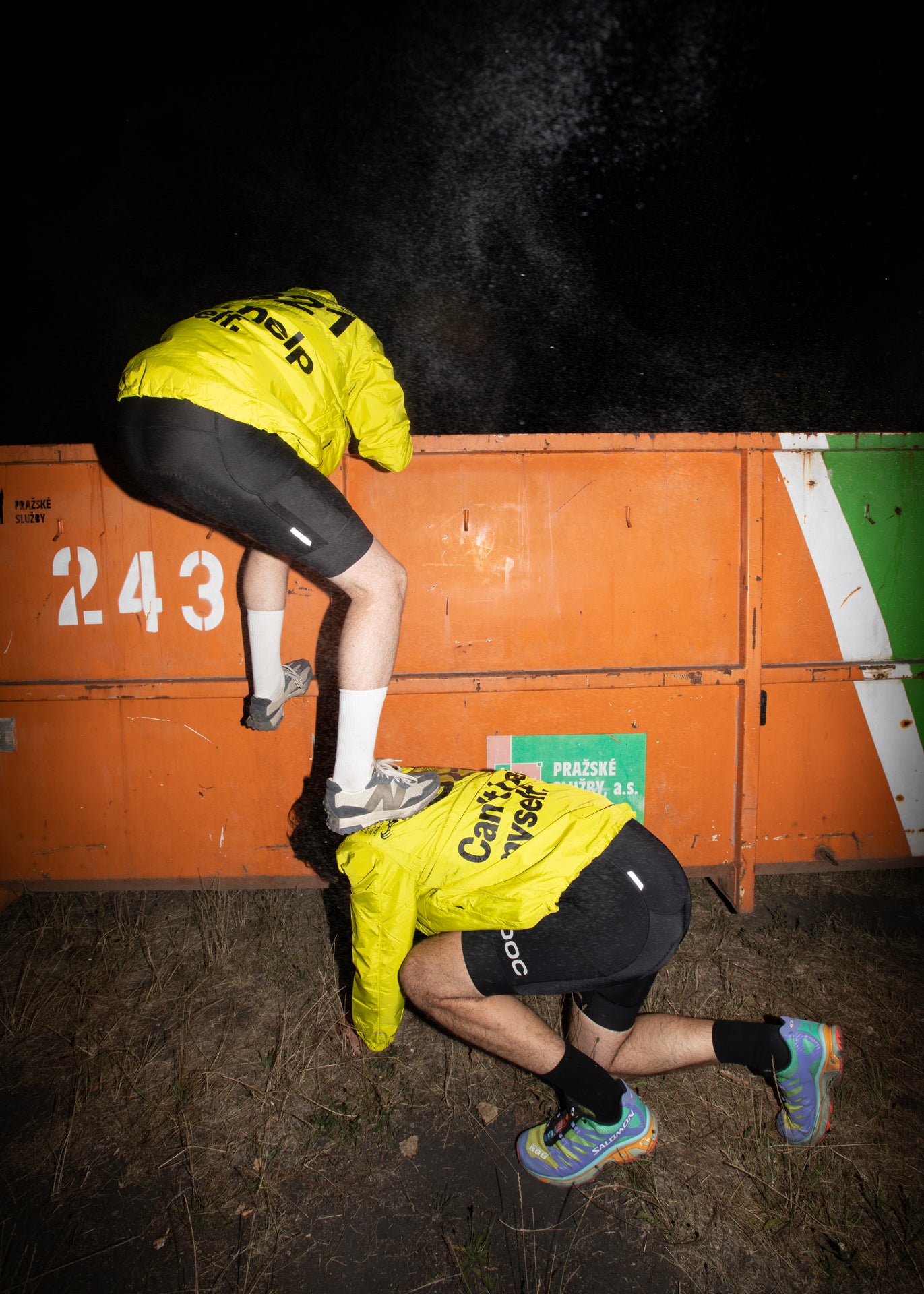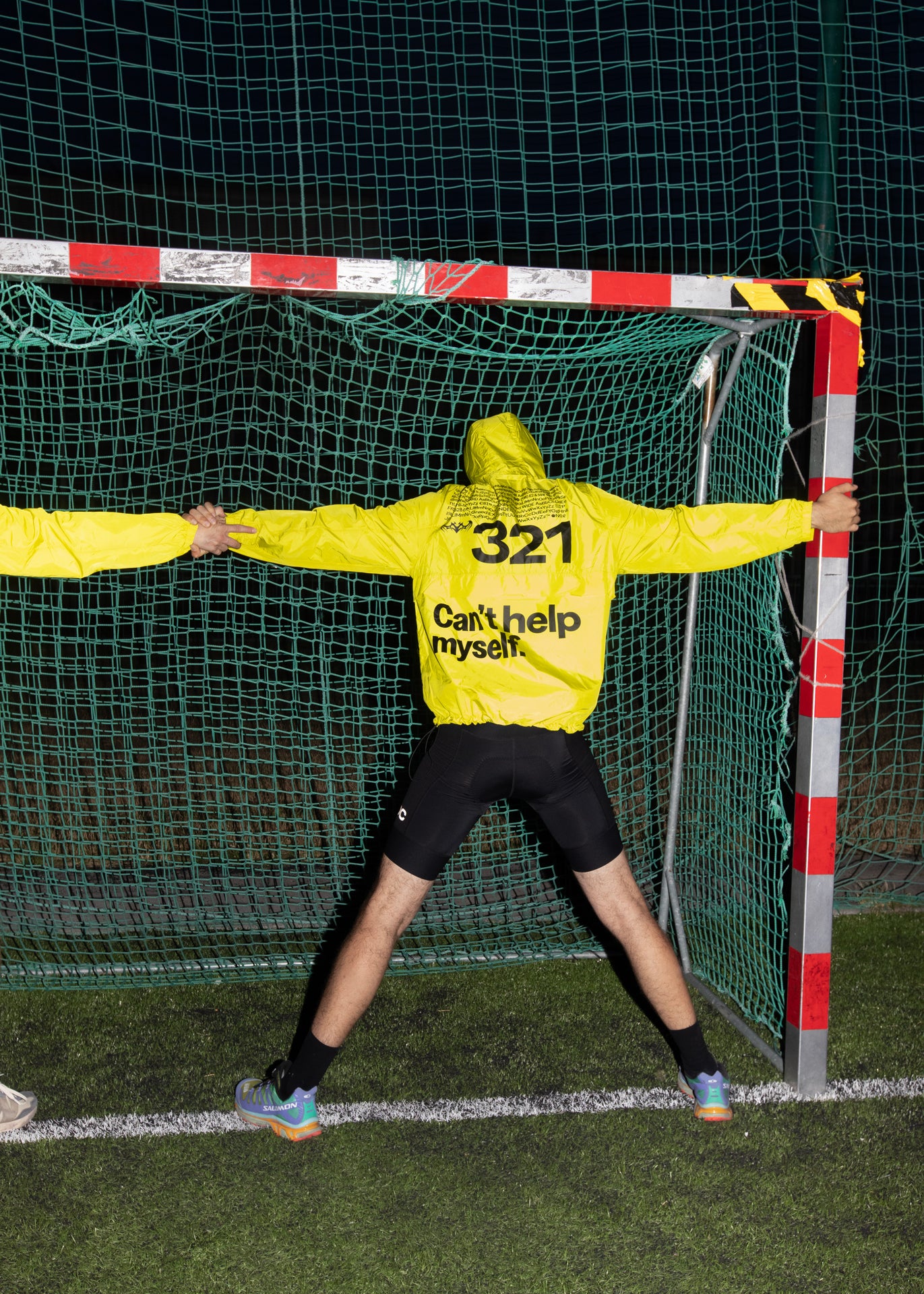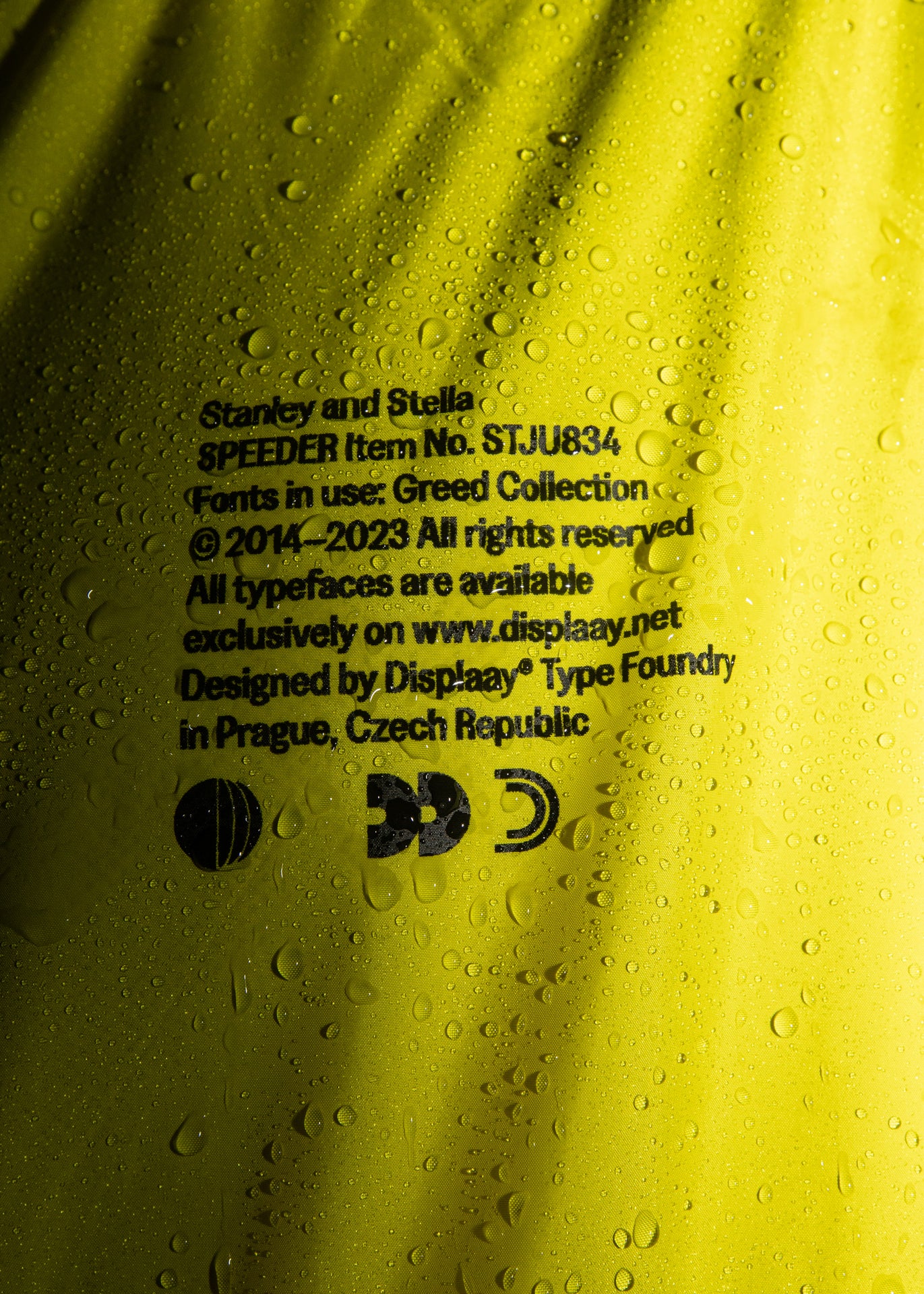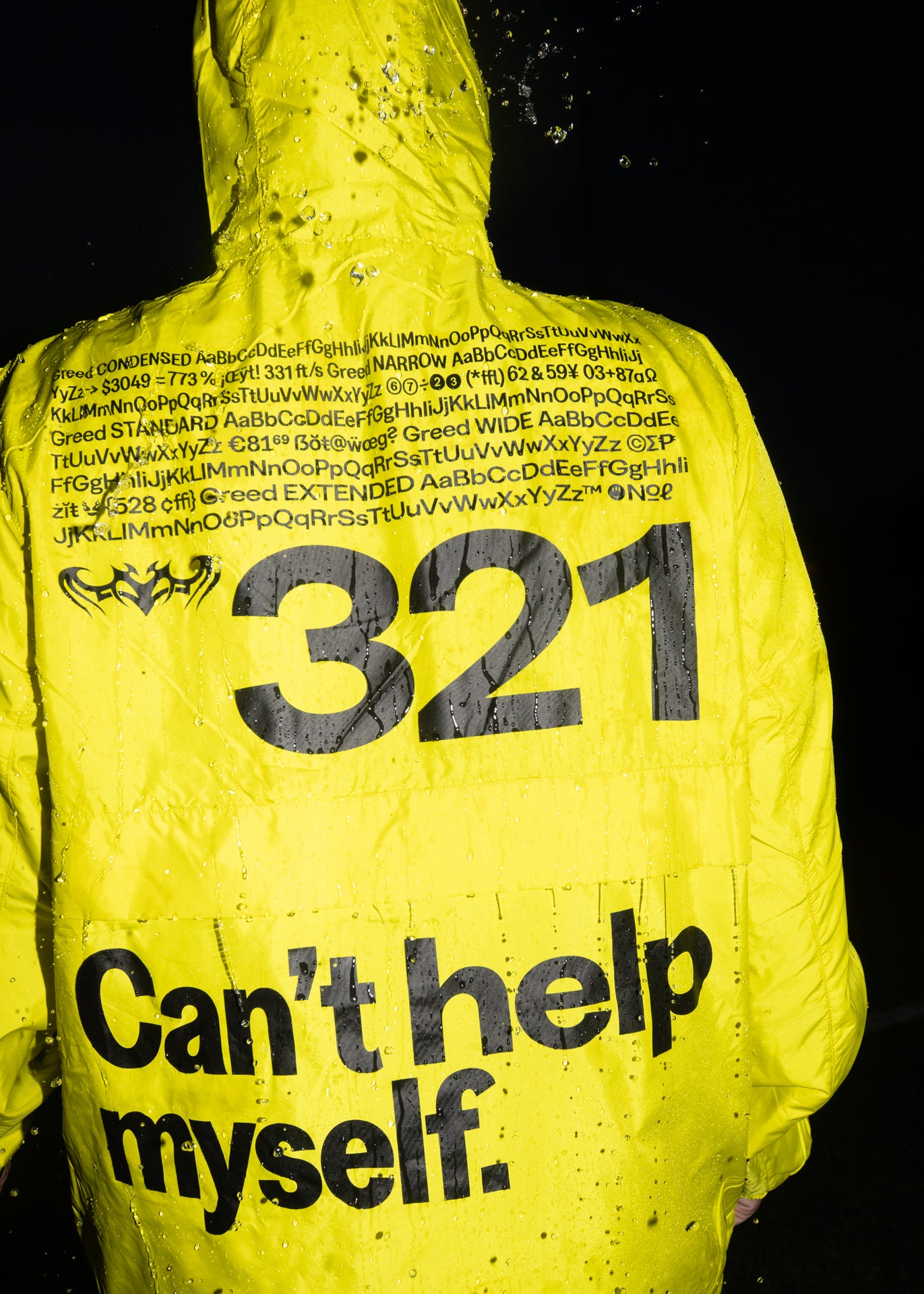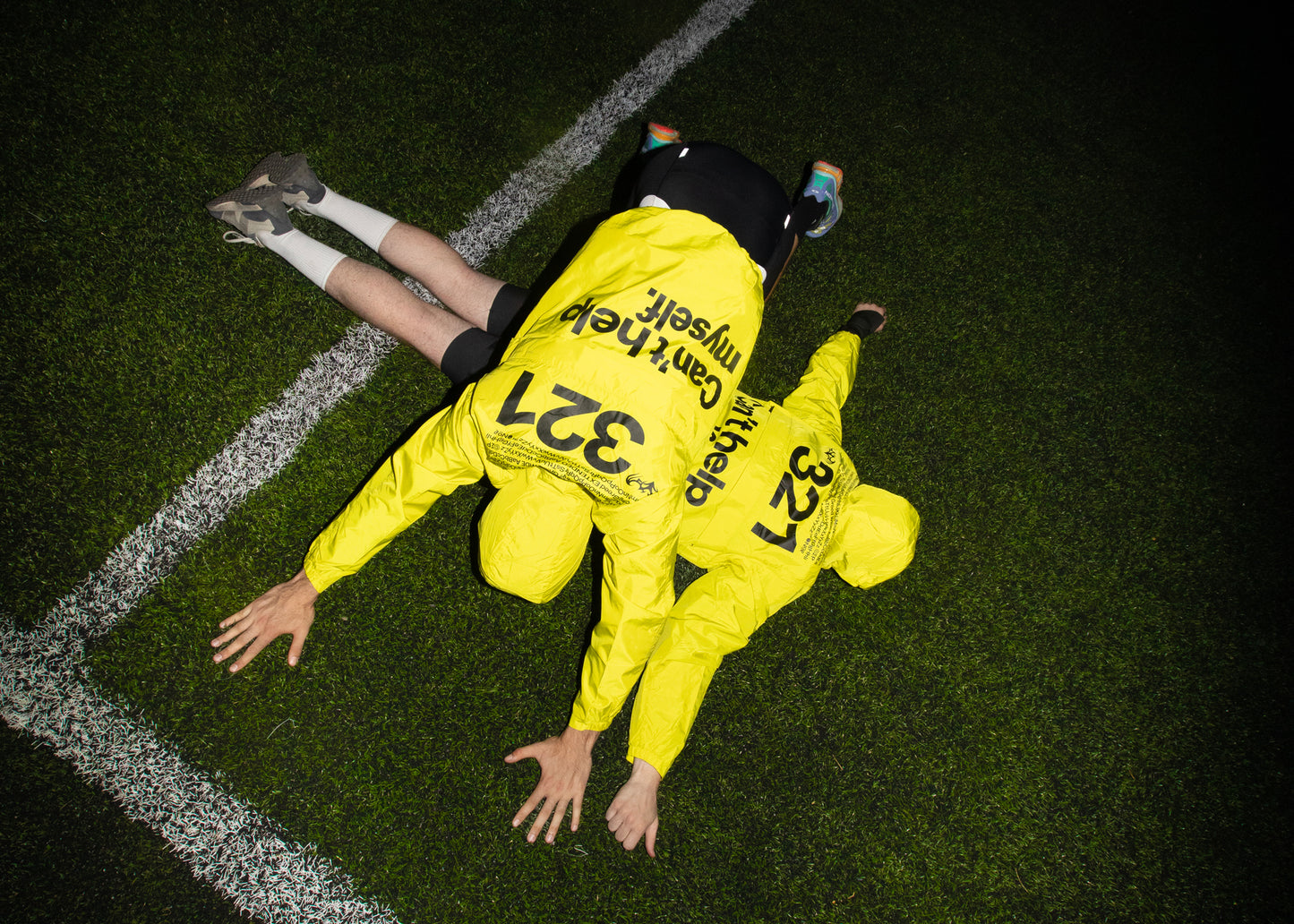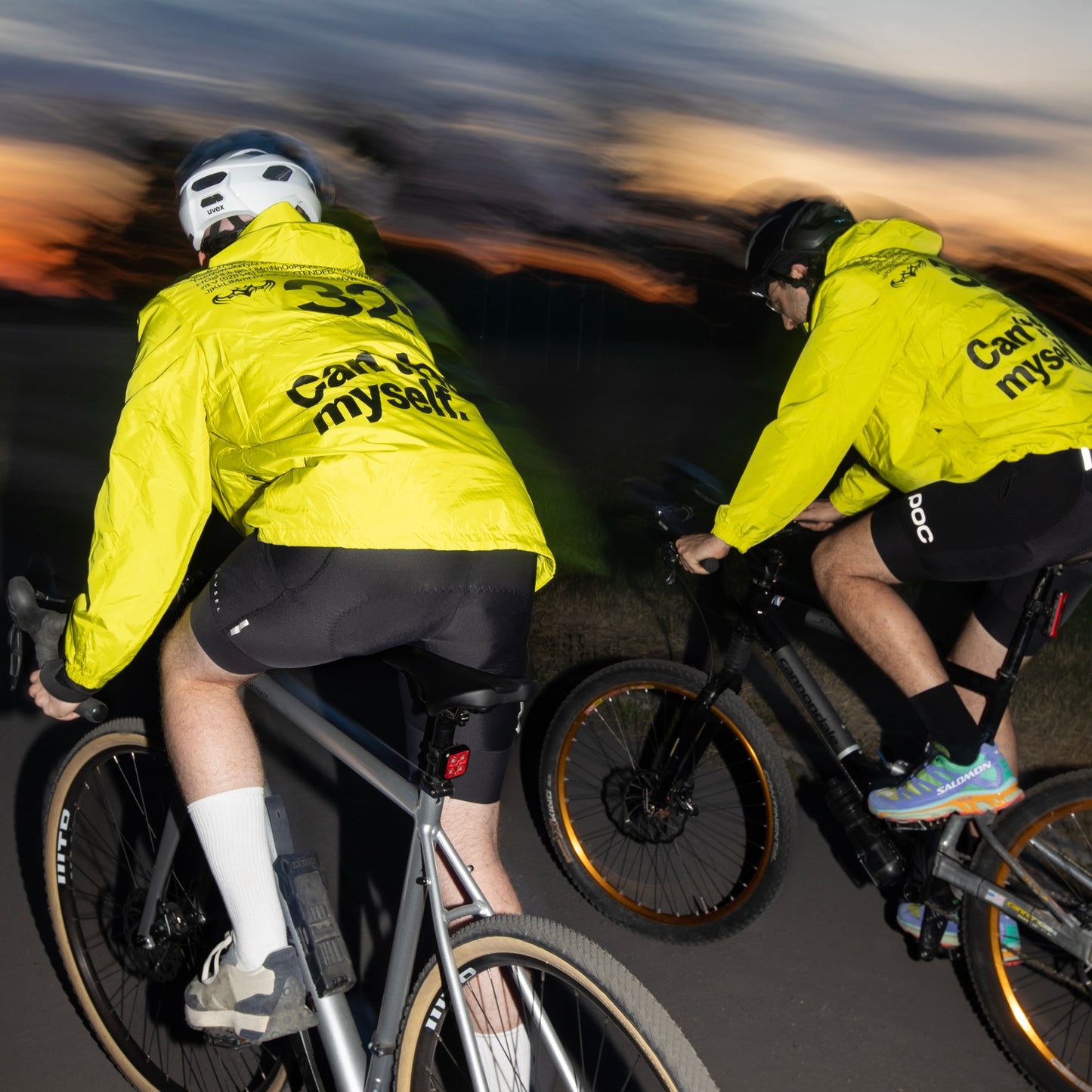
Greed ANORAK
Since we are passionate athletes, enthusiastic designers, and "greedy" fashion geeks, we knew we needed this anorak so badly that we made it. From condensed to extended, all of us are united in our love for the new enhanced collection of the Greed typeface.
Font in use: Greed